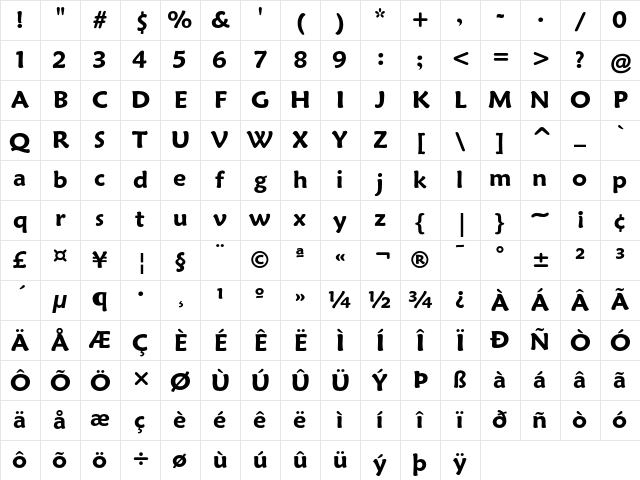
Complete Maiandra Demi Bold glyph index. Displaying only characters natively supported by Maiandra Demi Bold font.
Maiandra is a composed and adaptable typeface that performs quietly and consistently across a wide range of design contexts. Its bold stroke weight gives it real presence on the page.